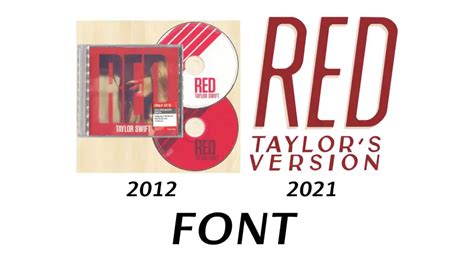
Red Taylor's Version Font. Try our text generator and create cool graphics for red (taylor swift) font, then you can. Web i think taylor's version looks like carla sans italic;
It was released on october 22, 2012, by big machine records. And the “taylor’s version” part is similar to cromlin demo bold italic font. But italic version isn't available so maybe they edited it? The condensed sans serif on the cover art is tungsten semibold. Also, red looks like tungsten italic ; Suggested font kapra neue light italic condensed rounded suggested by. Firstly, the “red” part is similar to the latinotype font anguita sans medium italic. But i can't find the italics version of both the fonts. Red (taylor swift) font generator & download is available free at fontbolt. Try our text generator and create cool graphics for red (taylor swift) font, then you can.
But italic version isn't available so maybe they edited it? But i can't find the italics version of both the fonts. It was released on october 22, 2012, by big machine records. And the “taylor’s version” part is similar to cromlin demo bold italic font. Web red taylor’s version font consists of two parts. Suggested font kapra neue light italic condensed rounded suggested by. Web i think taylor's version looks like carla sans italic; Also, red looks like tungsten italic ; Red (taylor swift) font generator & download is available free at fontbolt. But italic version isn't available so maybe they edited it? Try our text generator and create cool graphics for red (taylor swift) font, then you can.